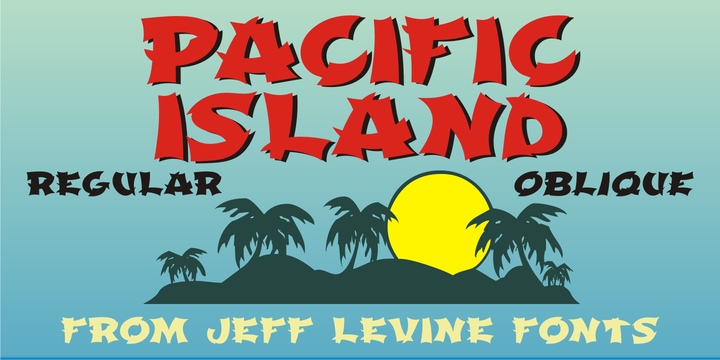
Pacific Island JNL Font
Pacific Island JNL Font is perfect for tropical resort branding, tiki bar signage, Hawaiian restaurant menus, beach club logos, vacation travel posters, surf shop advertisements, island-themed packaging, and exotic beverage labels.
What makes Pacific Island JNL Font exciting is its authentic tropical aesthetic that instantly transports viewers to paradise destinations. The font captures the laid-back island lifestyle with letterforms inspired by vintage Polynesian design elements and mid-century tiki culture. Its unique character variations and organic flow evoke warm ocean breezes, swaying palm trees, and the carefree atmosphere that defines perfect tropical getaways.
The Pacific Island JNL Font family includes regular weight with uppercase and lowercase letters, numerals, punctuation marks, and special characters. Premium versions often feature decorative alternates and stylistic elements that enhance the authentic island vibe for hospitality and tourism applications.
The exotic charm of Pacific Island JNL Font makes it particularly valuable for resort marketing, tropical dining establishments, and beach lifestyle brands. Its excellent readability ensures menu items and promotional materials remain clear while maintaining the distinctive island aesthetic that customers associate with quality vacation experiences.
Tourism professionals and hospitality designers value how Pacific Island JNL Font effortlessly conveys escapism and adventure. The font's balanced proportions and consistent rhythm create cohesive brand materials while preserving the exotic appeal that distinguishes tropical destinations from urban alternatives.
The versatile tropical nature of this typeface extends to surf culture, beachwear fashion, and outdoor recreation brands where island authenticity enhances market appeal. Pacific Island JNL Font Free Download provides designers with an essential tool for creating engaging, paradise-inspired designs that resonate with audiences seeking tropical experiences, relaxation, and the timeless allure of island living in today's fast-paced world.